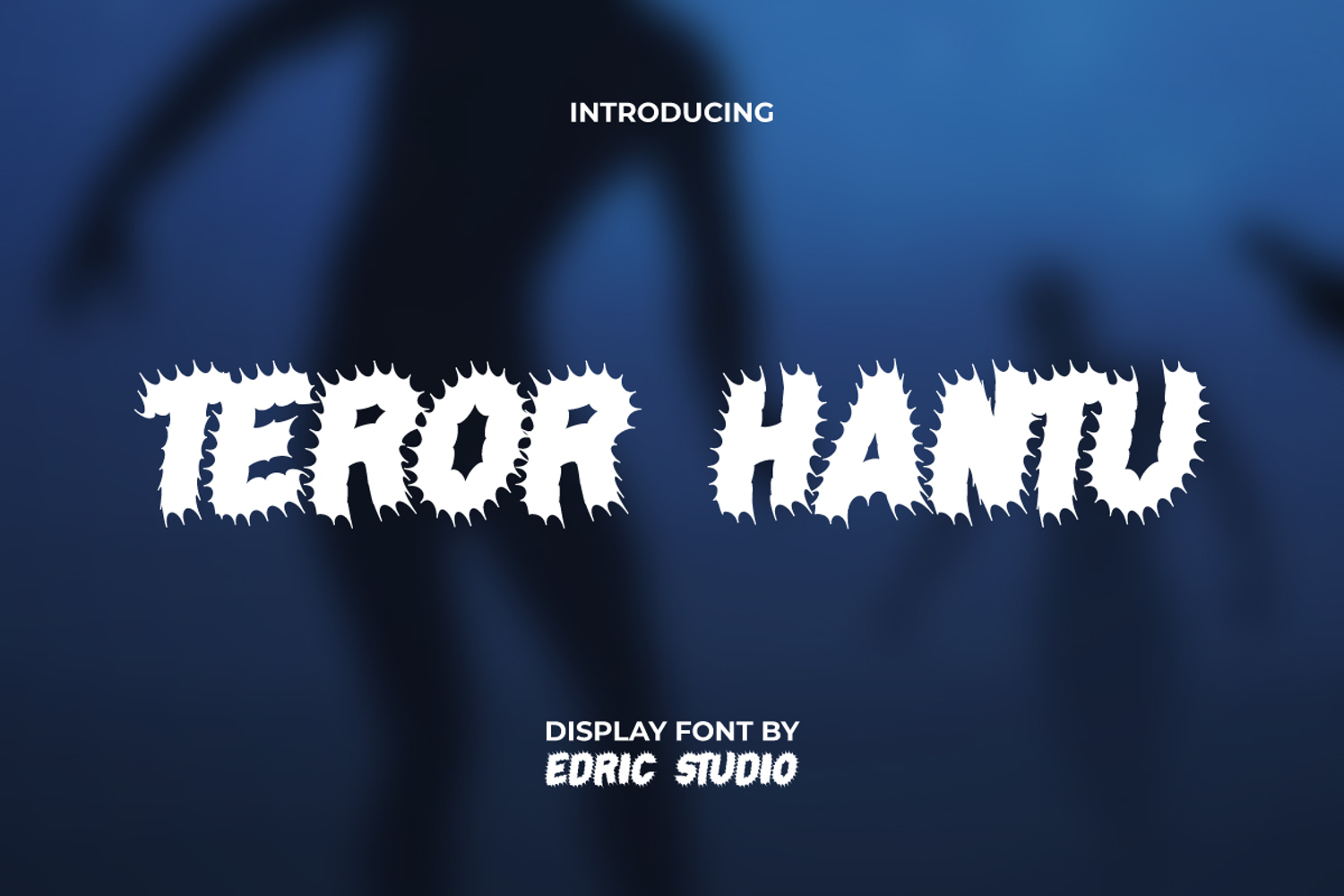
Teror Hantu Font
Teror Hantu Font is a spooky but fun theme display font that combines casual but slightly fun letters with a touch of sharp spines that at first glance look like a cartoon image of a bomb blast. Its unique design makes it perfect for creating an eye-catching display. Ideal for app view, banners, headers, logos, mockup, posters, quotes, social media, template design, titles, websites, and anything else. This adds a distinctive and standout creative edge ensuring originality of style.
Teror Hantu Font includes a complete basic set in ALL CAPS for both uppercase and lowercase letters, Numbers, Punctuation and Symbols. The font is versatile and fits into a variety of design contexts. Whether for digital interfaces or printed materials. Even though the dark font concept often only makes you goosebumps because it is scary, this time it is packaged with a different nuance. This could be for a Halloween project or accessories, clothing brand, film, games, graphic design, etc.